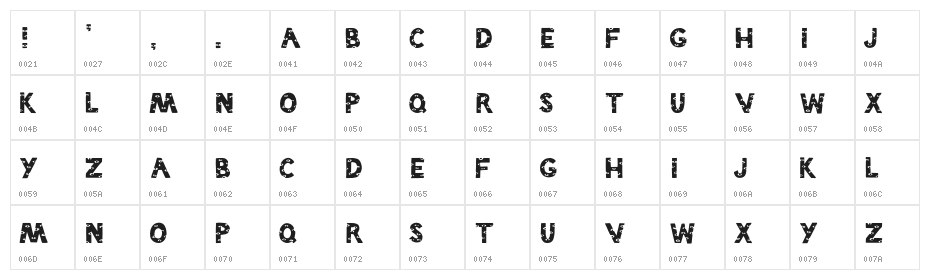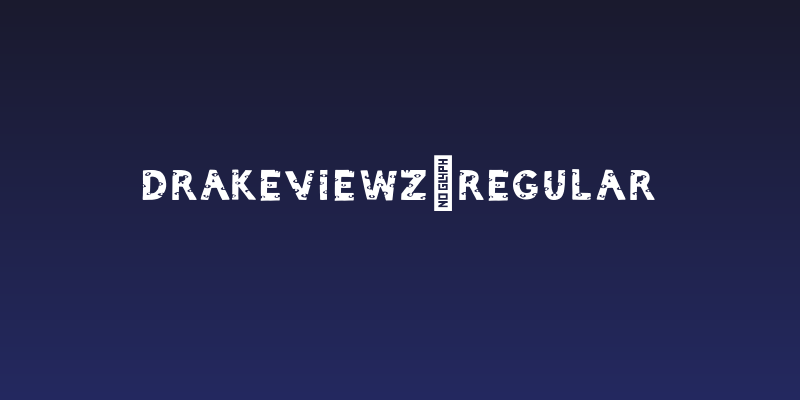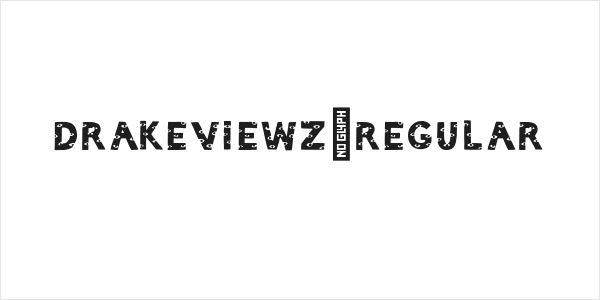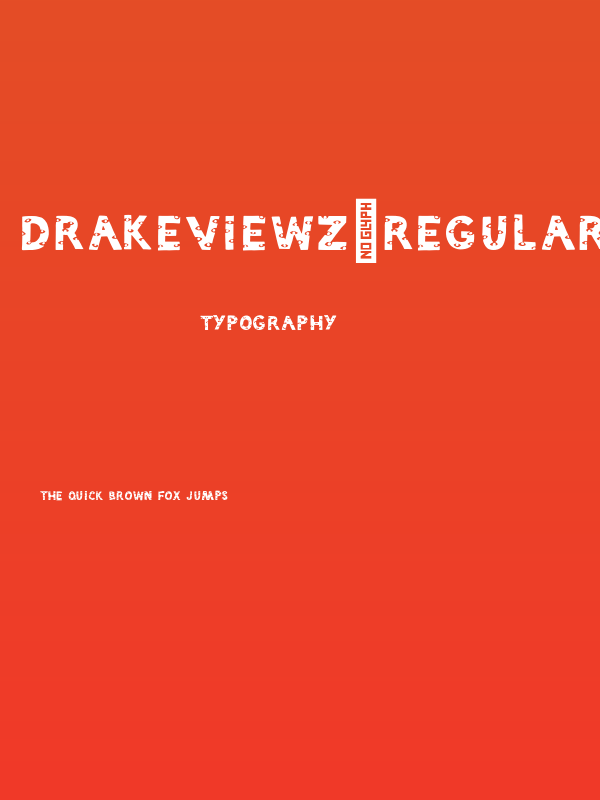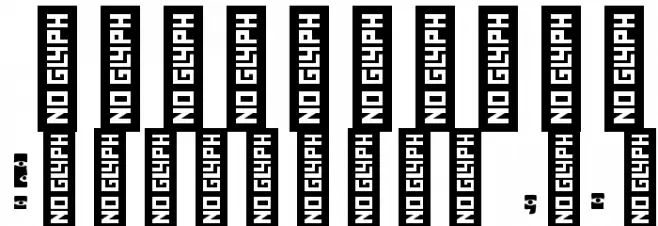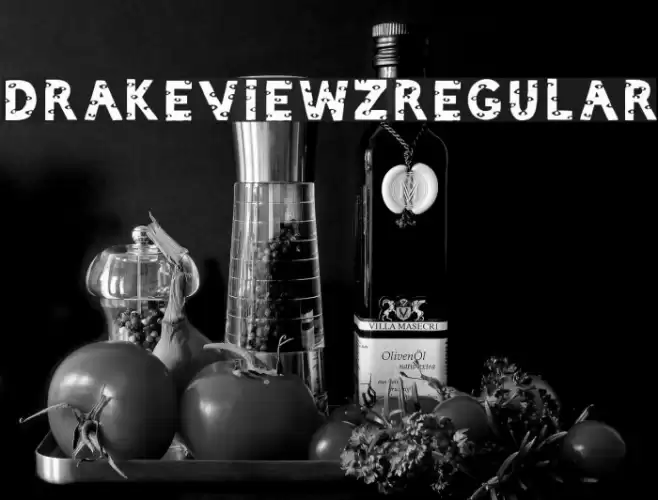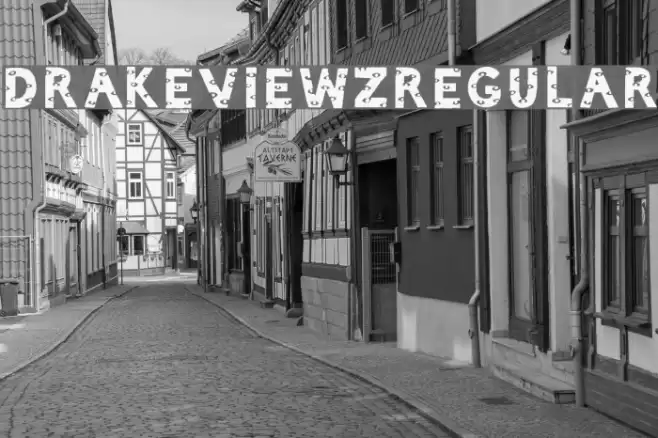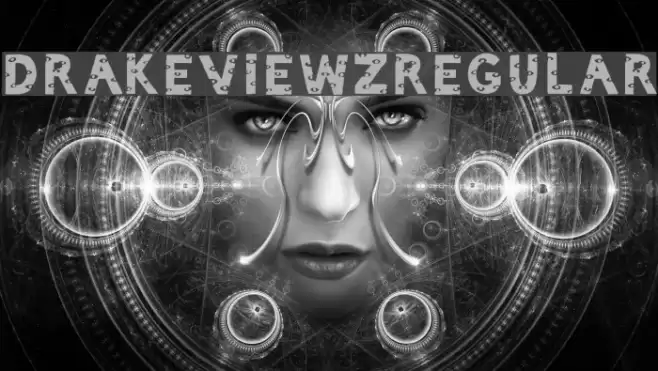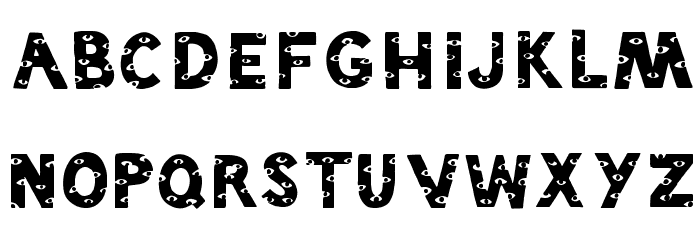
DrakeViewz-Regular Font
DrakeViewz-Regular Description
This font features a bold and decorative style with a unique pattern embedded within each character. The uppercase letters are designed with a playful and artistic flair, incorporating small, contrasting shapes that add a whimsical touch. The overall appearance is striking and eye-catching, making it suitable for creative and unconventional projects. The font lacks lowercase letters and numerals, focusing solely on uppercase characters. Its distinct design makes it stand out, ideal for use in projects that require a bold statement.
| Proposed Projects | Ideal for posters, branding, and creative design projects that require a bold and artistic statement. |